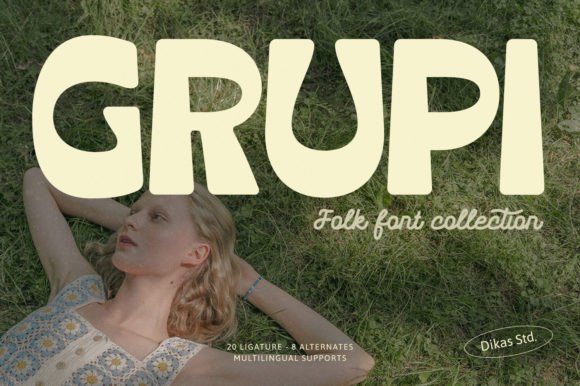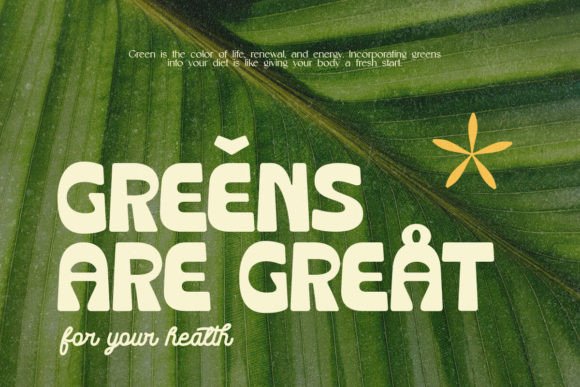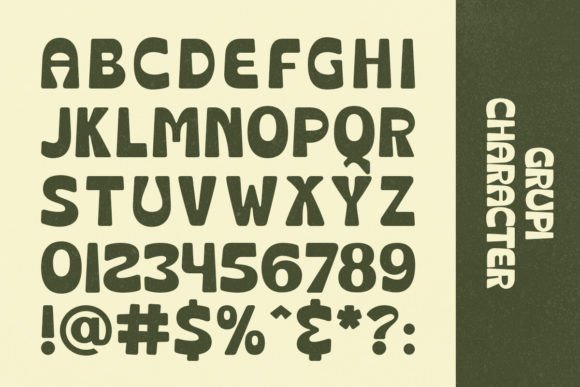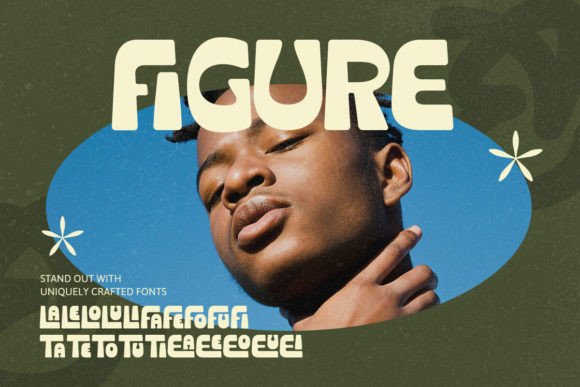
Grupi Font: A Bold Retro Typography for Groovy Logo Design
About the Grupi Font
Experience the unique personality of Grupi Font, a font designed for impact. Grupi – Bold Reverse Contrast Font
Grupi is a chunky, rounded font with a cool reverse contrast that’s made for retro, groovy, and pop-style designs. It’s awesome ligatures and alternative characters let you get creative and playful with your projects. Whether you’re going for something fun or just want a bold, standout look, Grupi has got you covered.
Grupi excels in headline applications, short slogans, and branding elements where its bold, retro style makes a strong visual statement. It’s ideal for posters, packaging for playful products, and social media graphics. However, its chunky weight and reverse contrast make it unsuitable for body text or long-form content; readability suffers at smaller sizes.
Grupi’s personality is undeniably bold and playful, conveying a sense of fun and retro energy. It’s perfect for brands targeting a younger demographic or those wishing to project a vibrant, optimistic image.
Grupi Font Usage Examples